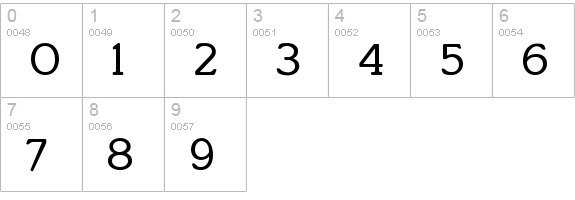
ItaliaBook Font Details
ItaliaBook font is a stunning typeface that embodies the timeless elegance and charm of Italy. With its beautifully crafted letterforms and graceful curves, this font captures the essence of Italian design and culture. Whether used for headlines, titles, or body text, ItaliaBook adds a touch of sophistication to any project. What makes ItaliaBook font even more appealing is that it is free. Yes, you read that right! This exquisite font is freely available to download at FontsMarket.com. Now you can enjoy the beauty and versatility of ItaliaBook without breaking the bank. Designed with precision and attention to detail, ItaliaBook offers a wide range of weights and styles, allowing you to create a variety of looks and moods. From classic and elegant to modern and sleek, this font has the versatility to suit any design concept. When using ItaliaBook, you can expect exceptional legibility and readability, making it perfect for both print and digital applications. Its clean and clear letterforms ensure that your message is conveyed effortlessly to your audience. Whether you are working on a branding project, a magazine layout, a website design, or any other creative endeavor, ItaliaBook font is a valuable addition to your font library. Its timeless beauty and free availability make it a must-have for designers, typographers, and anyone who appreciates the artistry of typography. So don't miss out on this incredible opportunity to enhance your designs with the elegance of ItaliaBook font. Download it for free at FontsMarket.com and elevate your creative projects to new heights.